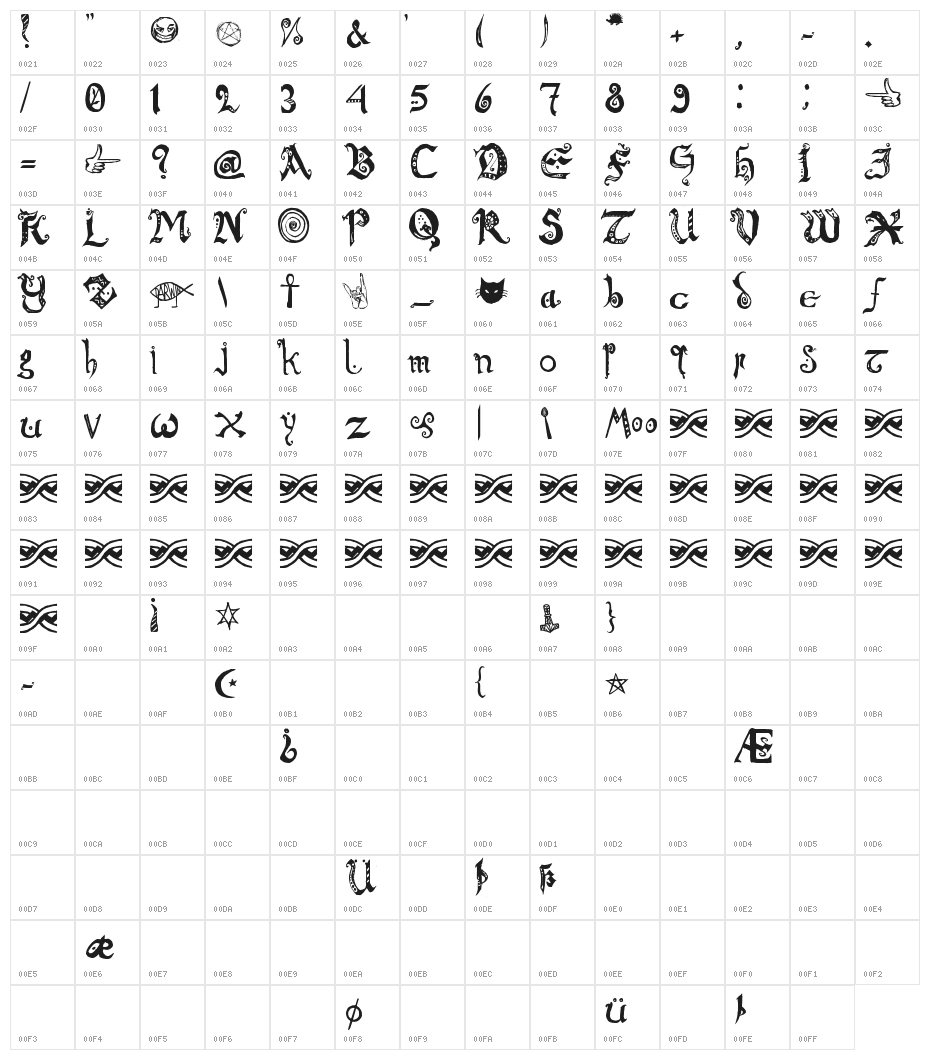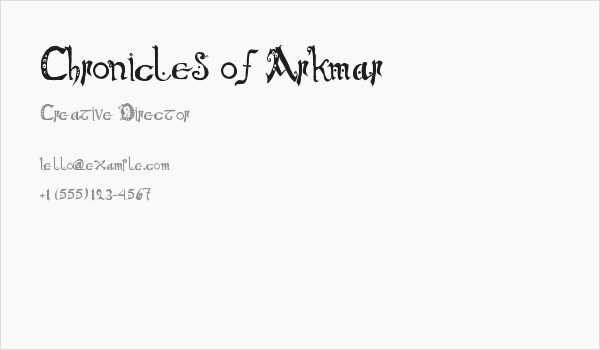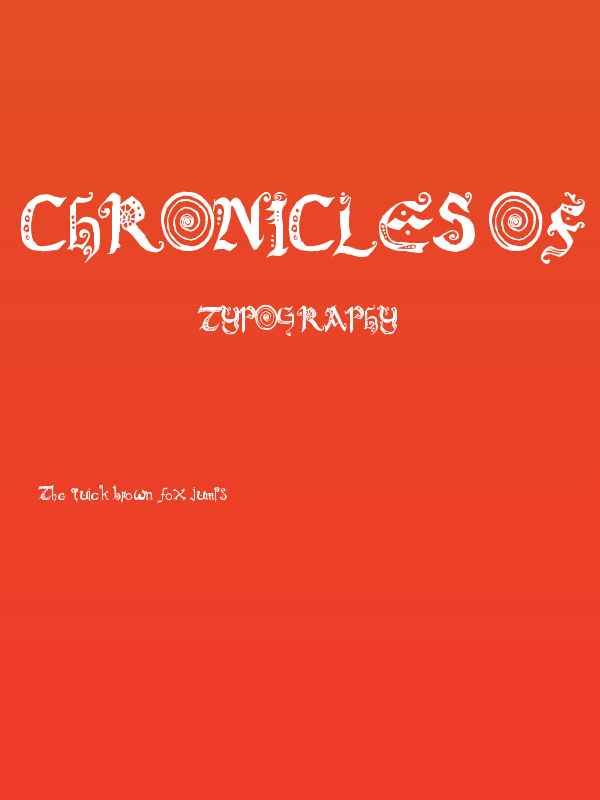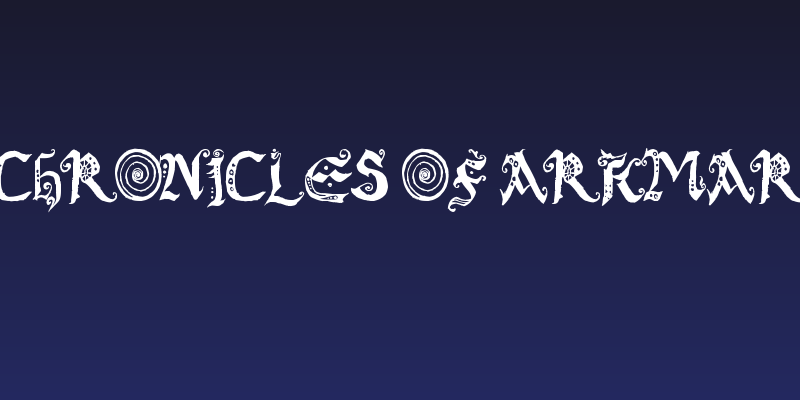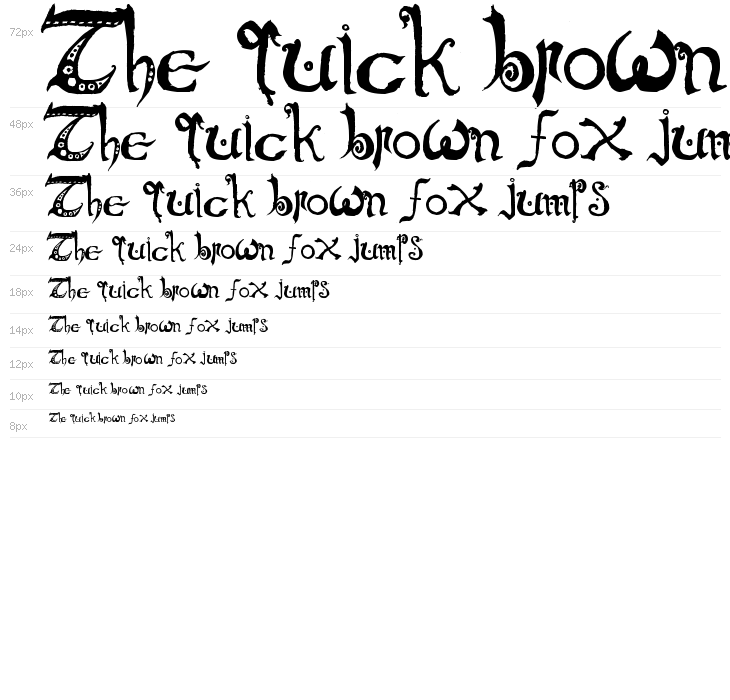
Chronicles of Arkmar Font
Chronicles of Arkmar Description
This font is a highly decorative and whimsical typeface, characterized by its intricate and playful design elements. Each letter features unique embellishments, such as swirls, spikes, and dots, giving it a fantastical and mysterious appearance. The uppercase letters are bold and dramatic, while the lowercase letters maintain a consistent style with slightly more subtle detailing. Numbers and special characters are equally ornate, with some incorporating thematic symbols like stars and spirals. The overall design evokes a sense of fantasy and adventure, making it ideal for projects that require a touch of magic or mystery.
Proposed ProjectsPerfect for fantasy book covers, game titles, Halloween-themed events, and decorative posters.